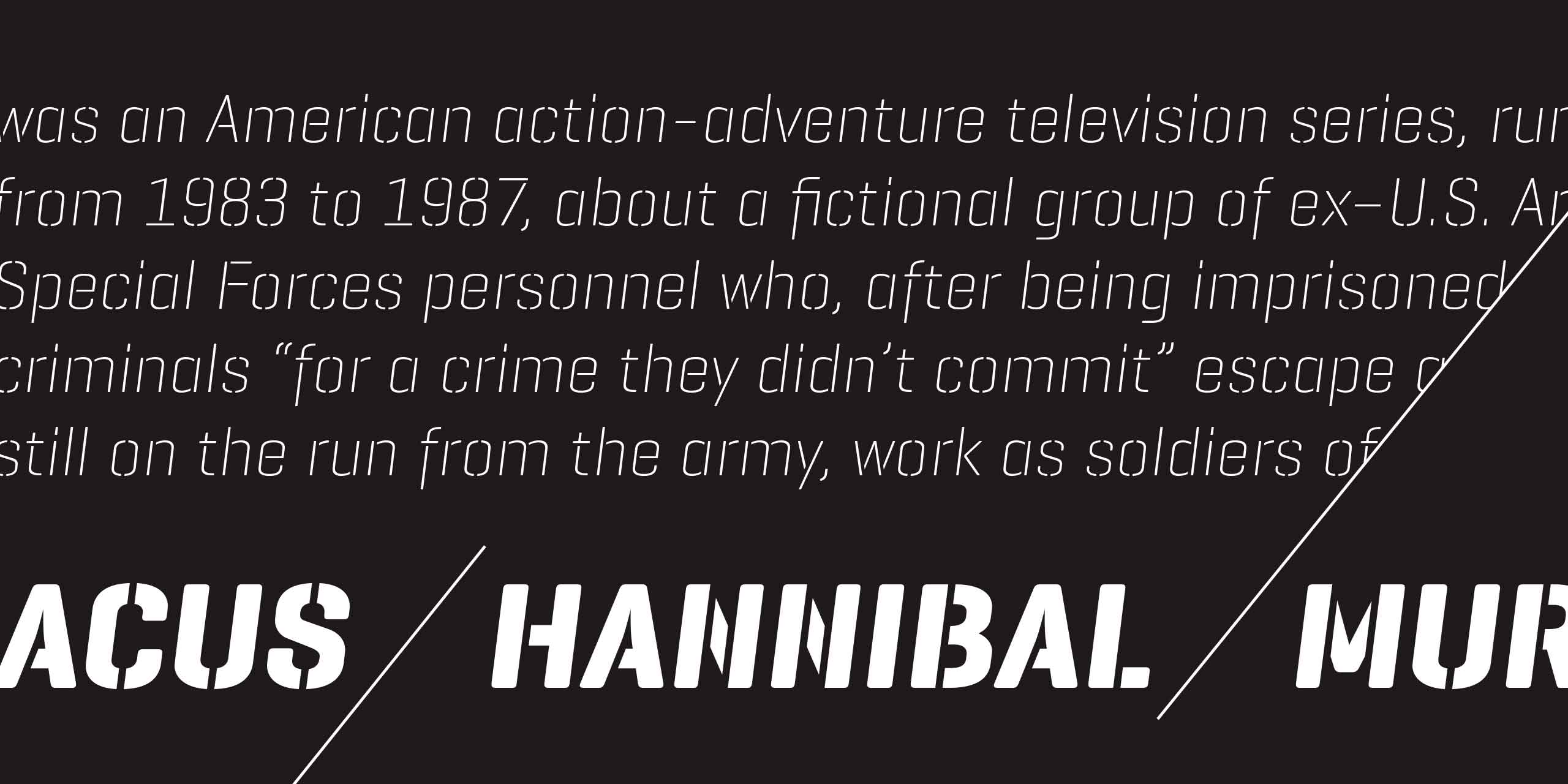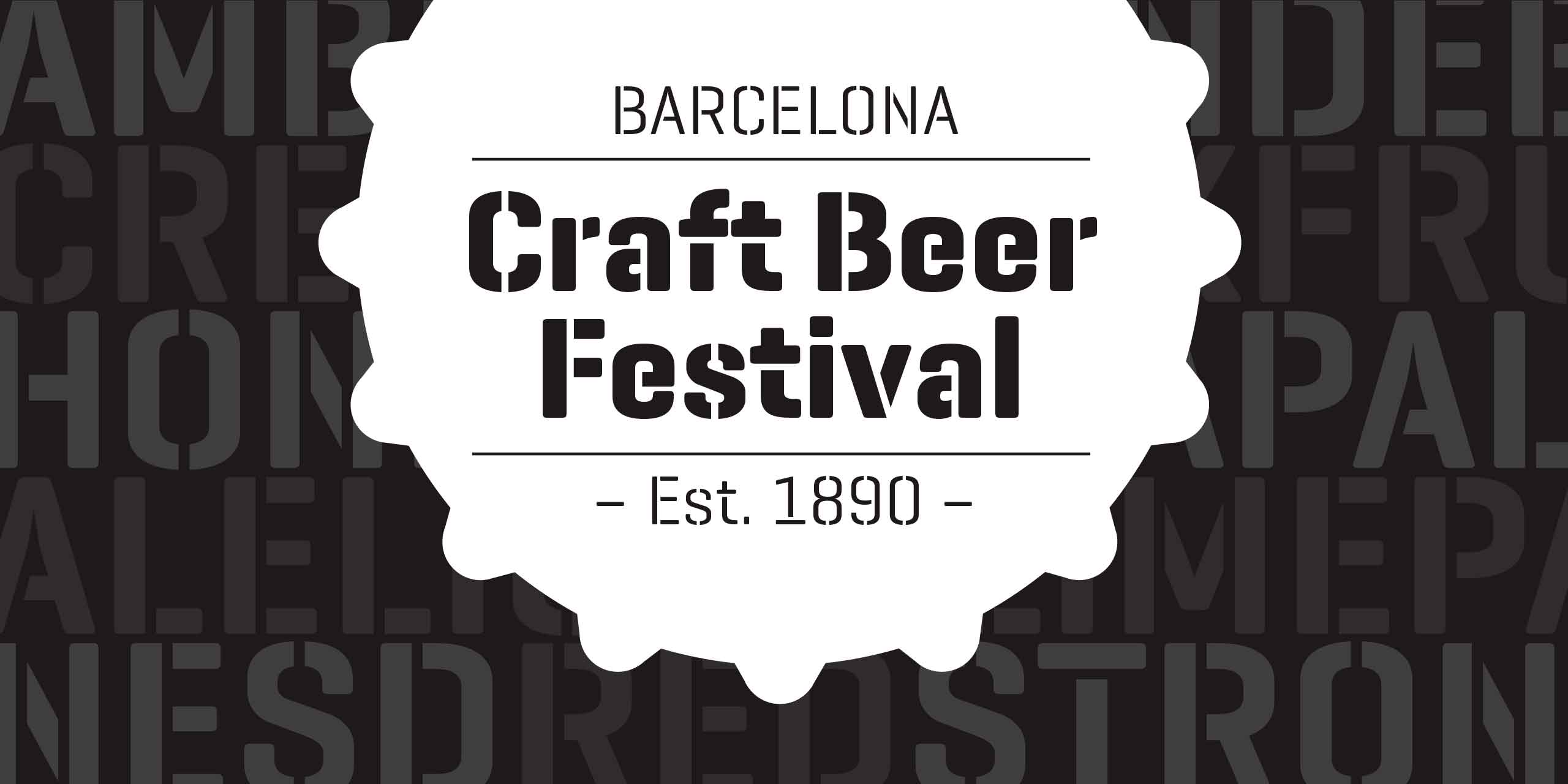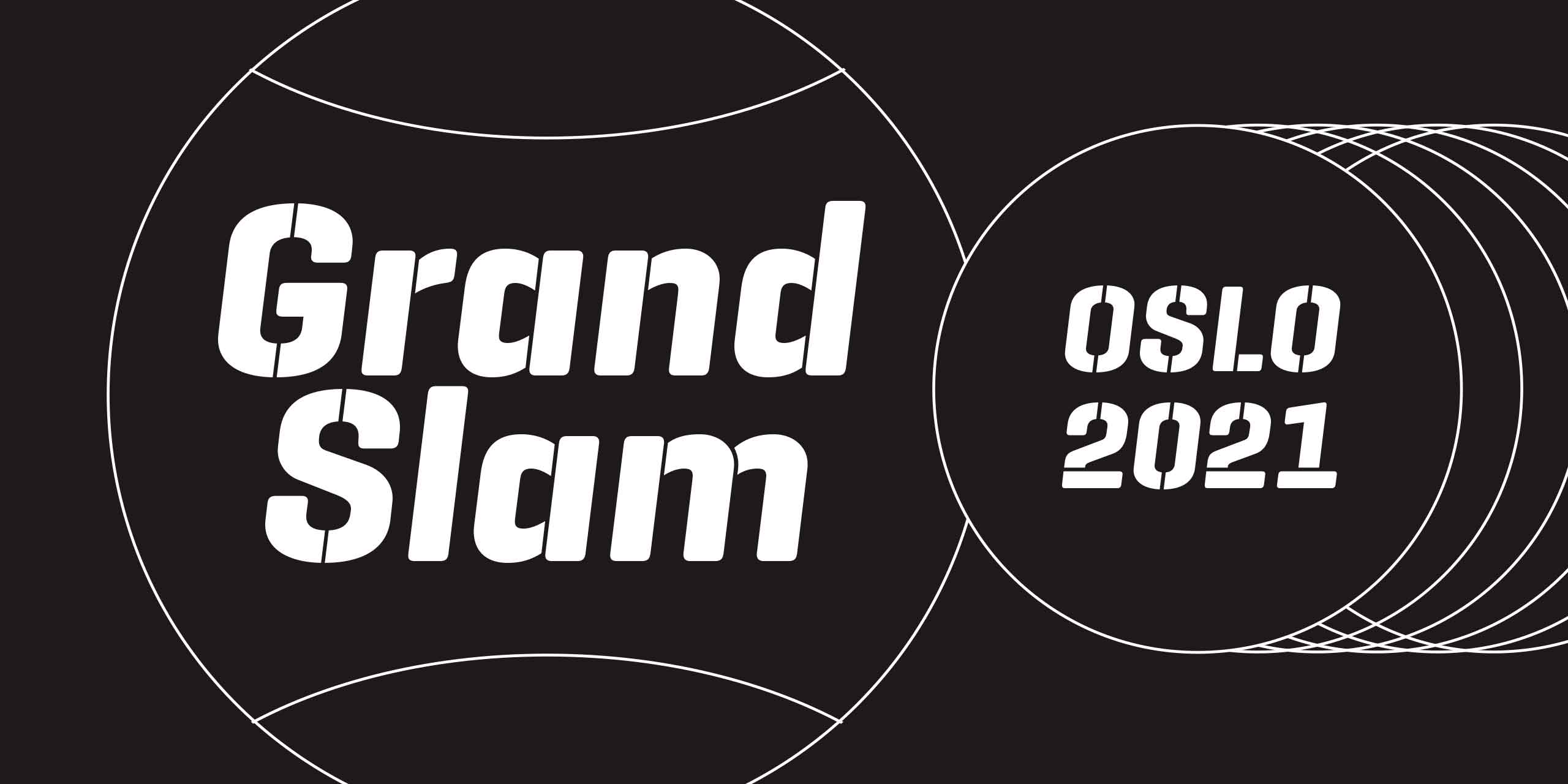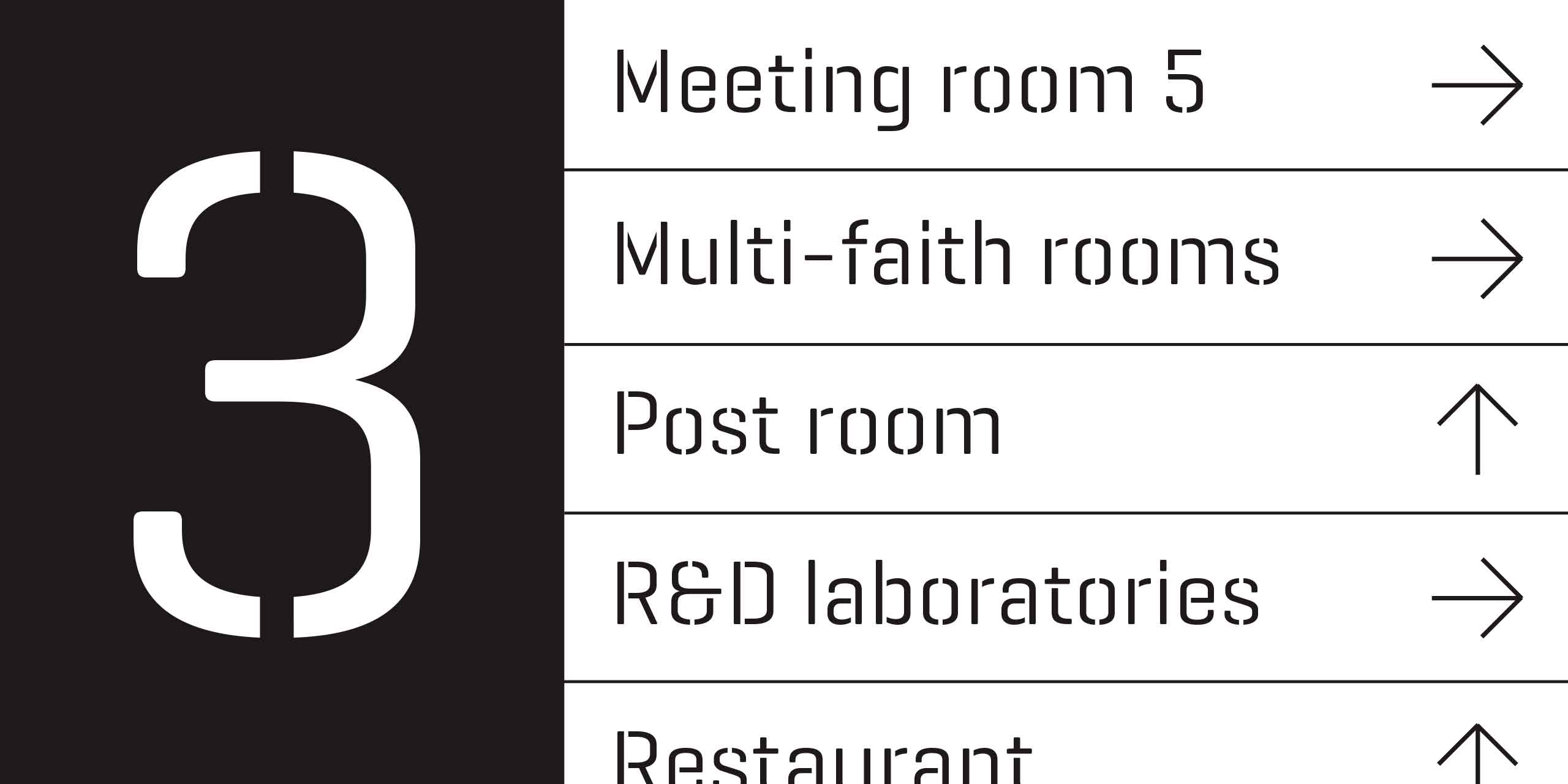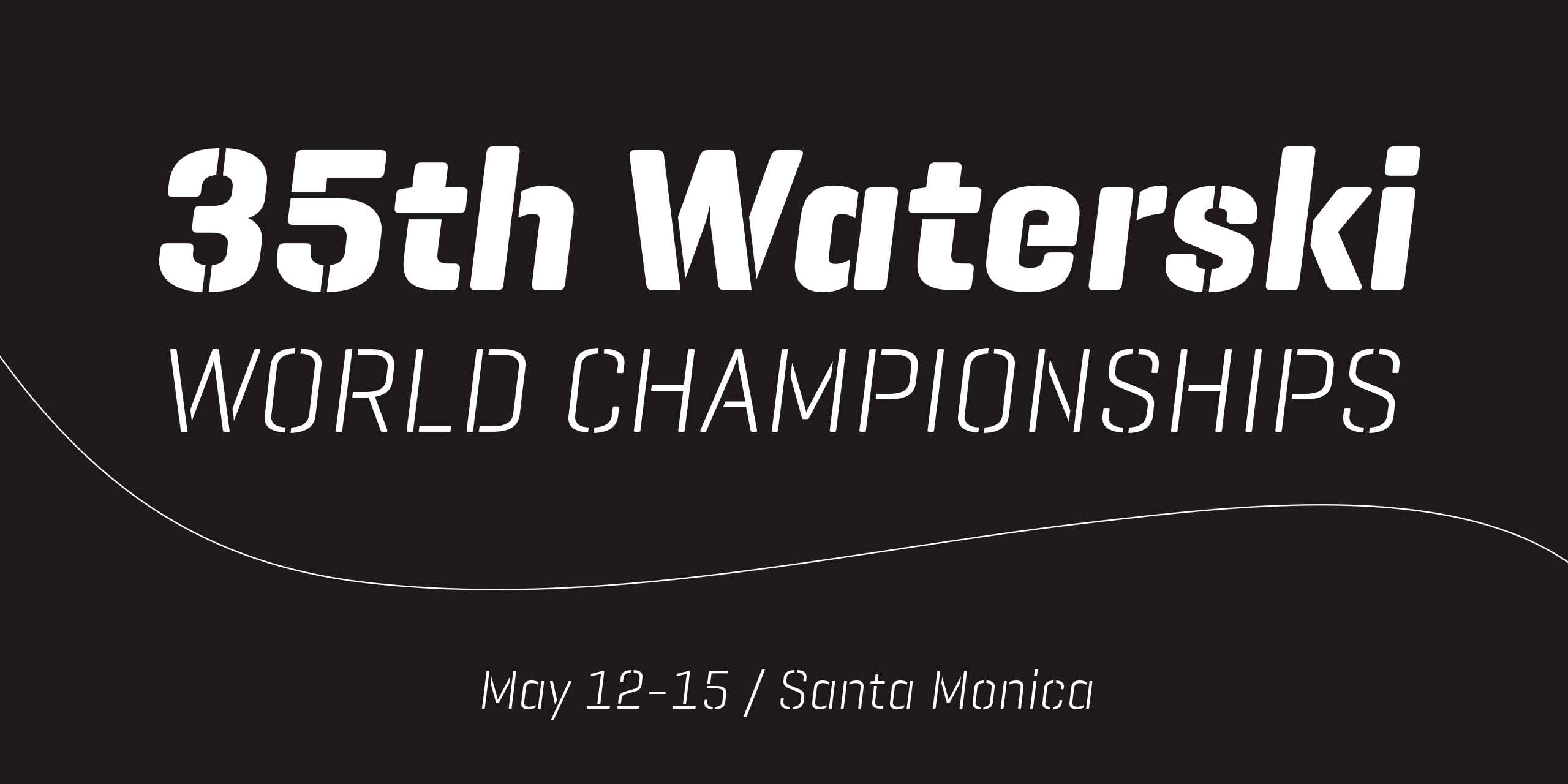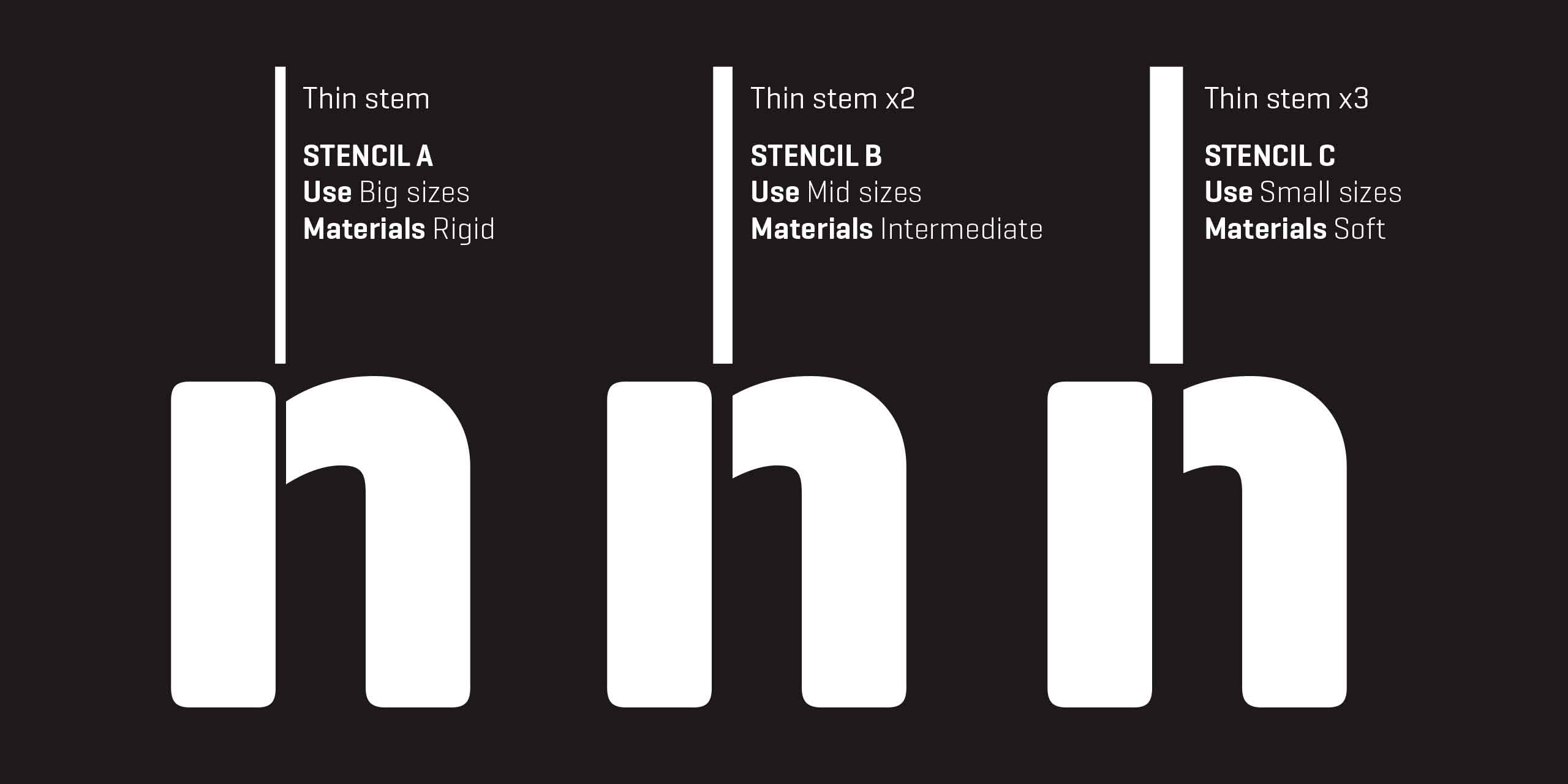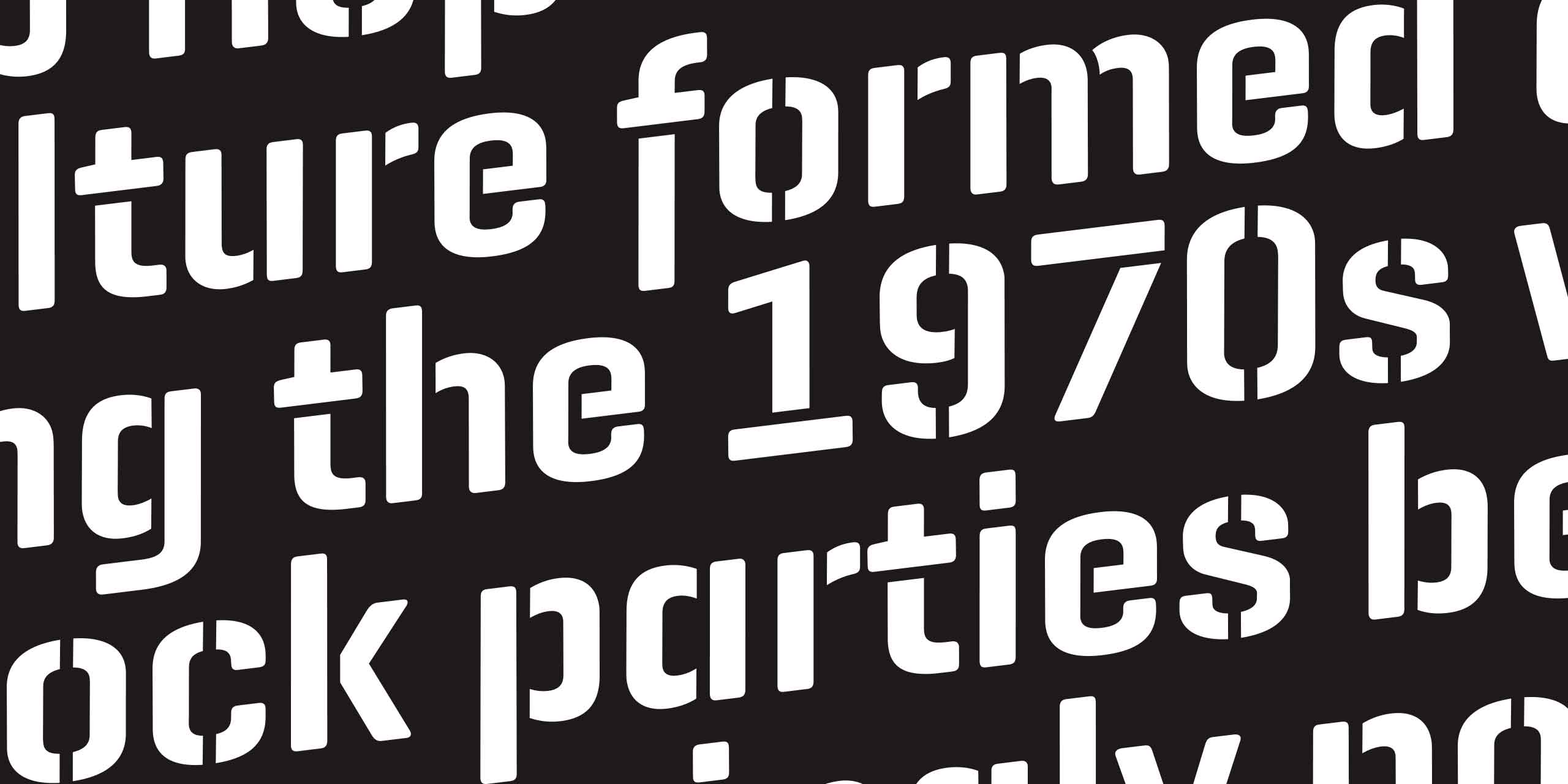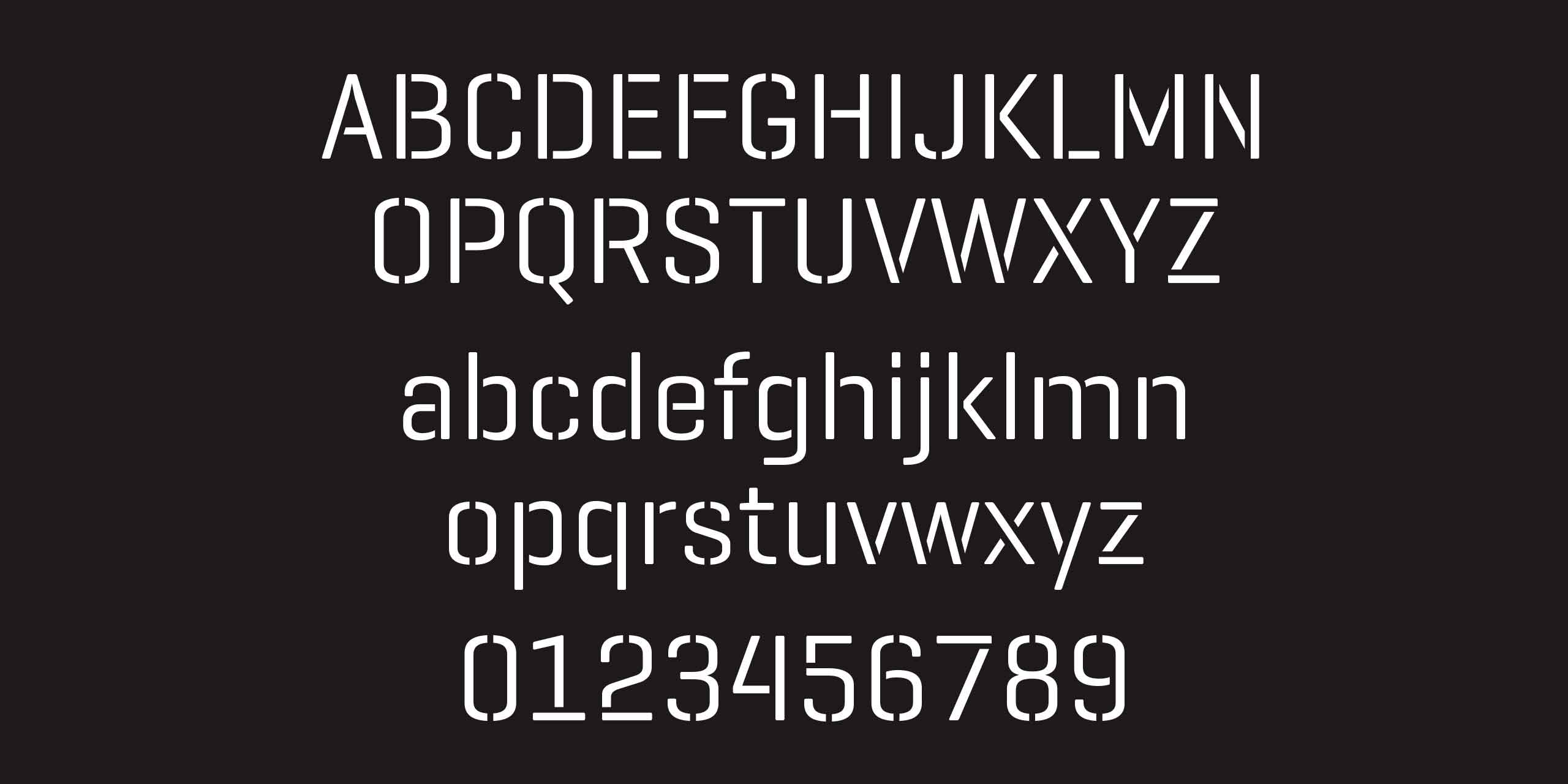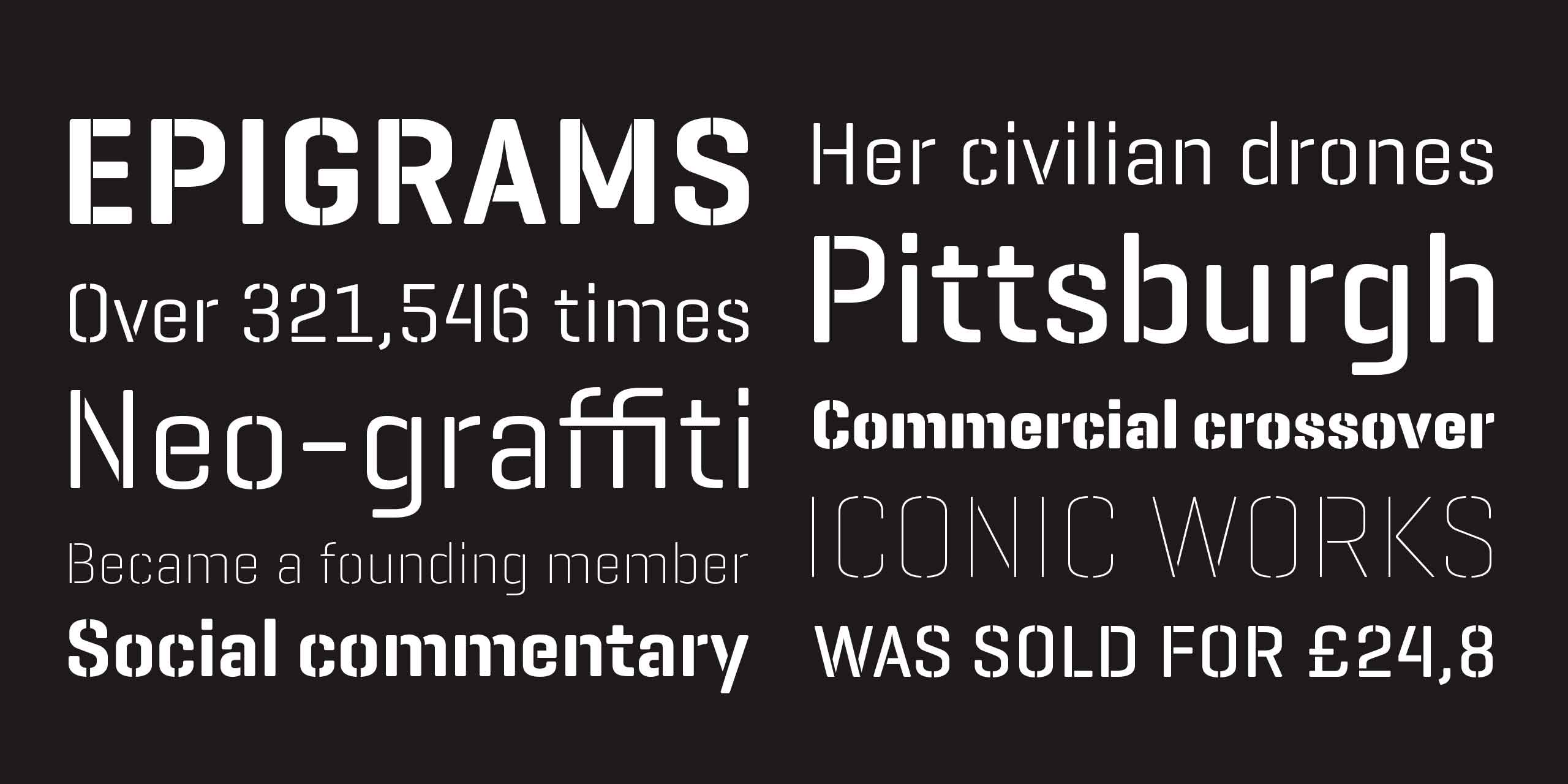
Geogrotesque
Geogrotesque Stencil is the newest member of the popular Geogrotesque family, it has been thought as a display typeface, but it goes one step further and tries to solve some of the typical problems of stencils fonts. Most stencil fonts don't have a wide range of weights, Geogrotesque Stencil has a range of 7 weights. Another characteristic of this type of fonts is that the cut usually does not adapt well to the size or the use of different materials, generally it has a wide cut that works well in small sizes but in larger sizes is not very elegant, on the other hand a thin cut does not work in small sizes and affects the reading.
Geogrotesque Stencil tries to solve these problems with 3 levels of cut (A, B and C). The thin cut (version A) matches the stem width of the Thin weight, in version B is twice as wide and in the version C is three times more wide. The cut maintains the same width through all weights and are not rounded, also other details have been modified for this stencil version, such as the "notch" of the n, a, b, d, p and q, or k where the horizontal arm disappears, these adjustments allow a better functionality of the typeface.
The cuts not only allow a better performance when printing at different sizes, but also allow you to use the version A, B or C in accordance to the rigidity of the material you have, for rigid materials use the version A where the cut is more thin and passes unnoticed, while for lighter materials you can use the version C where cuts are wider and help keeping the material more stable.
The type family consists of 21 styles, 7 weights (Thin, UltraLight, Light, Regular, Medium, SemiBold and Bold) available in 3 versions (A, B and C) in Open Type format with support for Central and Eastern European languages.
Geogrotesque Stencil Family